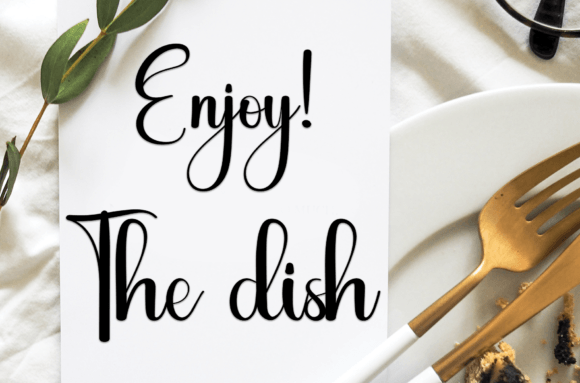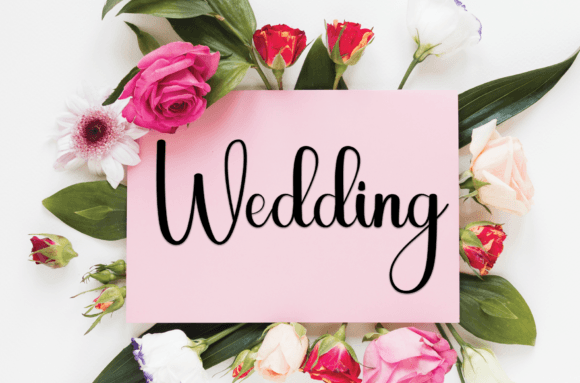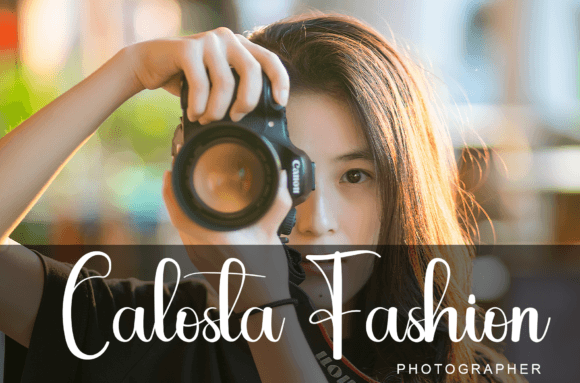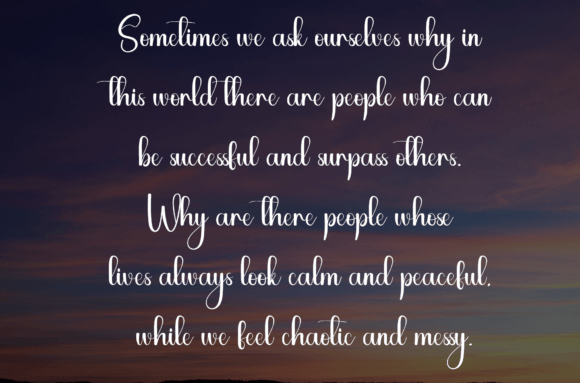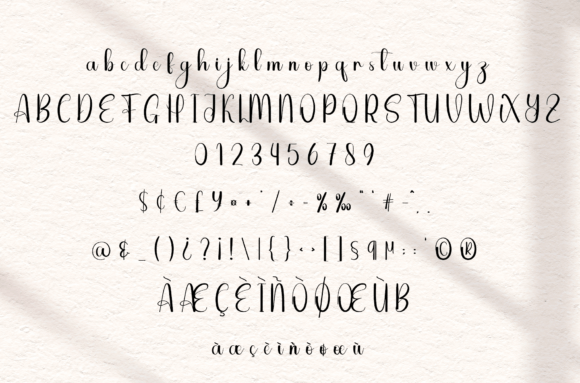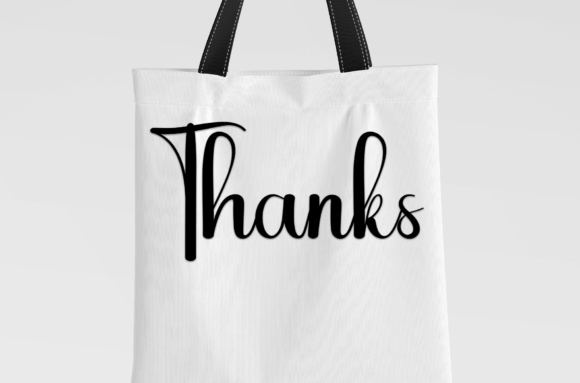
The Perfect Font for Your Next Design Project: Bowling Font
I’ll never forget the time I was working on a wedding invitation design project, and I just couldn’t seem to find the right font. My client wanted something sweet, friendly, and elegant, but not too formal. I spent hours scouring the internet, trying out different fonts, but nothing seemed quite right. That was until I stumbled upon the Bowling Font. ✨
This beautiful, handwritten font has become a staple in my design toolkit, and I’m excited to share it with you. In this article, we’ll dive into the world of Bowling Font, exploring its features, how to use it, and some similar fonts you might love.
An Honest Review of Bowling Font
- ✨ Sweet and friendly vibe: Bowling Font has a warm, inviting feel that’s perfect for wedding invitations, birthday cards, and other celebrations.
- ✅ Highly legible: Despite its handwritten nature, Bowling Font is incredibly easy to read, even at smaller sizes.
- 🎉 Versatile: This font works beautifully for both digital and print designs, from social media graphics to party invitations.
While Bowling Font is an amazing addition to any design project, there are a few things to keep in mind: 🤔
- ⚠️ Limited character set: Bowling Font might not have all the characters you need, especially for non-English languages.
- ⚠️ Not ideal for body text: While it’s legible, Bowling Font is best used for headings, titles, or short paragraphs. For longer texts, you might want to choose a more traditional font.
The Story Behind Bowling Font
Bowling Font was designed with love and care by a talented font creator who wanted to craft a font that would bring joy and warmth to designs. While the exact story behind the font might be unknown, its sweet and friendly personality shines through in every character. 💕
Q: What makes Bowling Font unique?
A: Bowling Font’s unique blend of sweetness, friendliness, and elegance makes it perfect for a wide range of design projects.
Q: Is Bowling Font suitable for body text?
A: While Bowling Font is legible, it’s best used for headings, titles, or short paragraphs. For longer texts, choose a more traditional font.